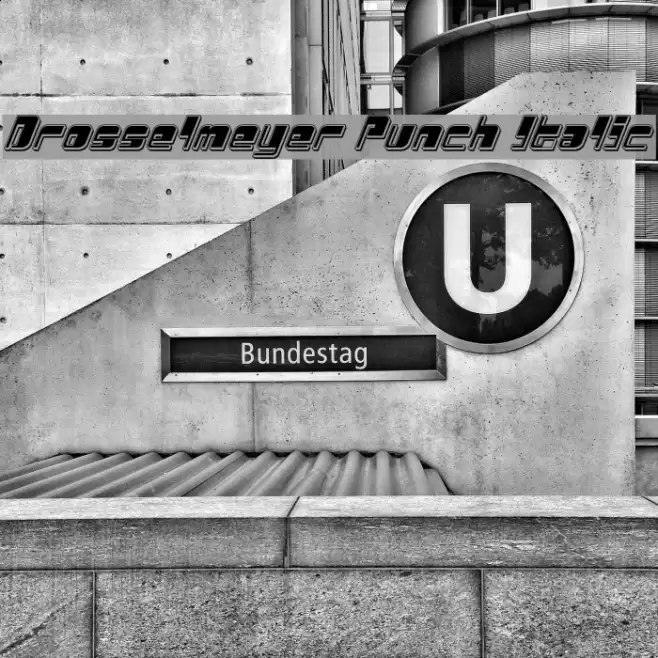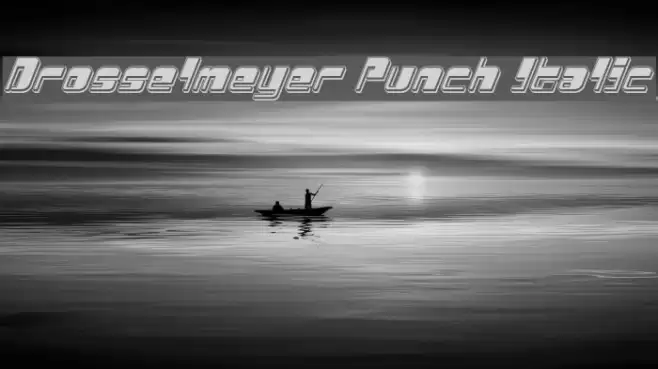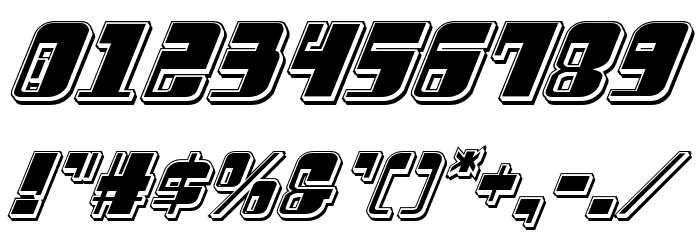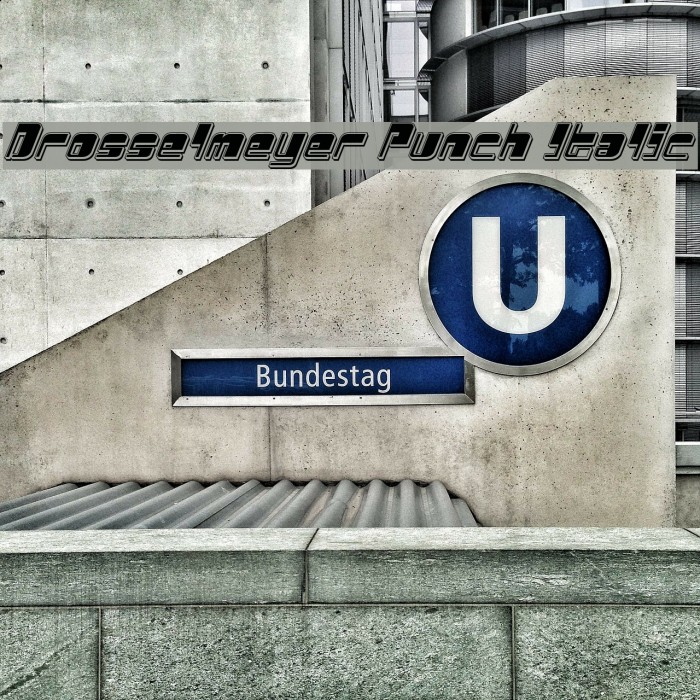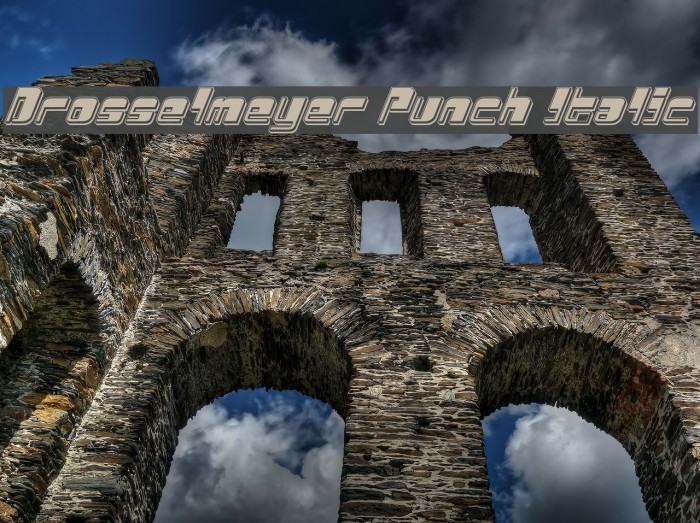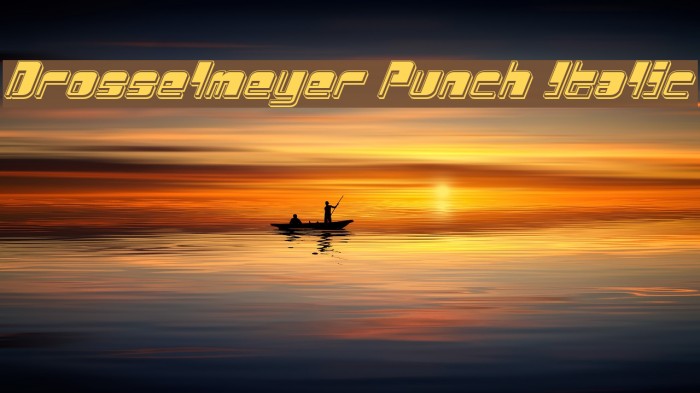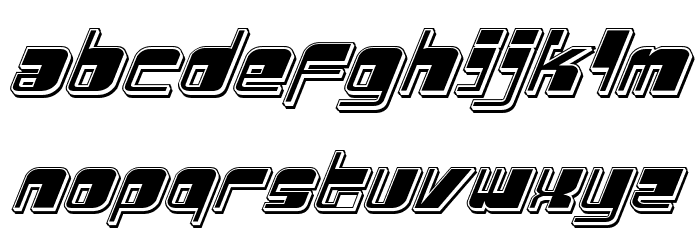
Drosselmeyer Punch Italic Font
Drosselmeyer Punch Italic Description
This font features a bold, dynamic style with a strong geometric influence. The letters are italicized, giving them a forward-leaning, energetic appearance. Each character is outlined, adding depth and a three-dimensional effect. The strokes are thick and consistent, providing a robust and impactful look. The font maintains a modern aesthetic with a slight retro vibe, making it suitable for attention-grabbing designs. The characters are tightly spaced, enhancing the compact and cohesive feel of the text.
A bold, italicized font with geometric outlines and a modern, dynamic style from Uncategorized fonts.
- Proposed Projects: Ideal for sports branding, dynamic posters, video game titles, and futuristic designs.
- Character Spacing: Tight